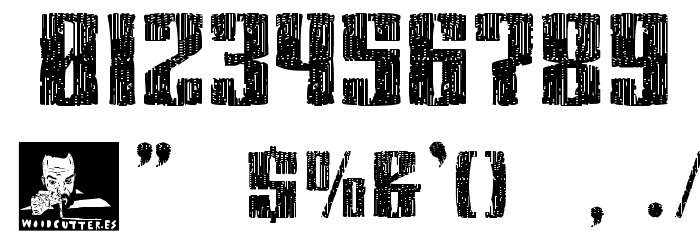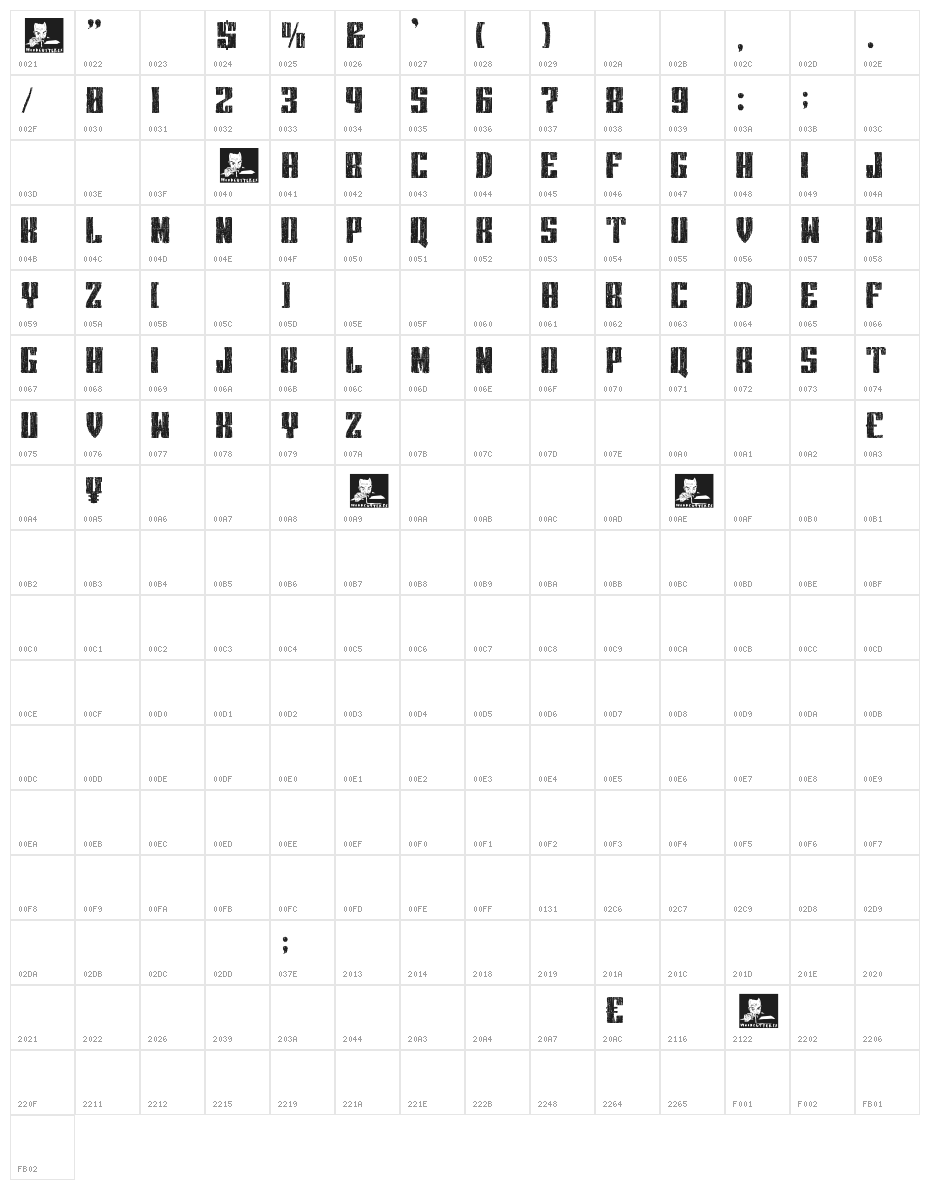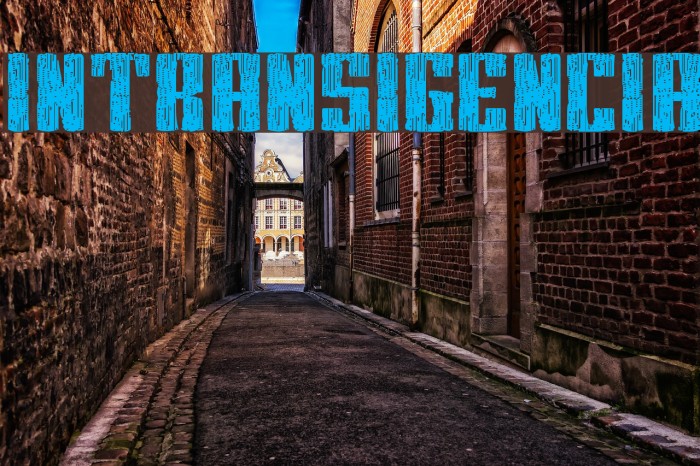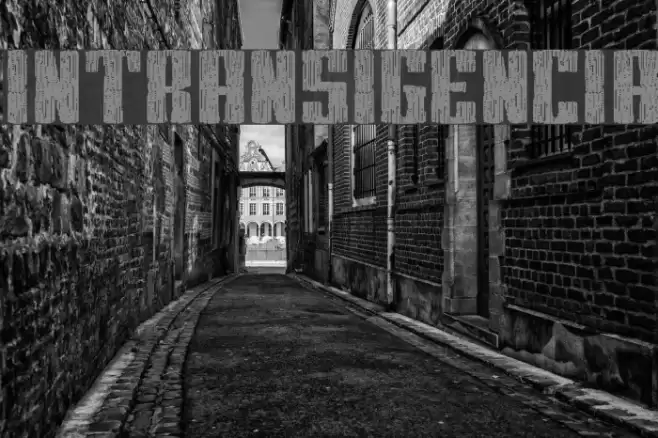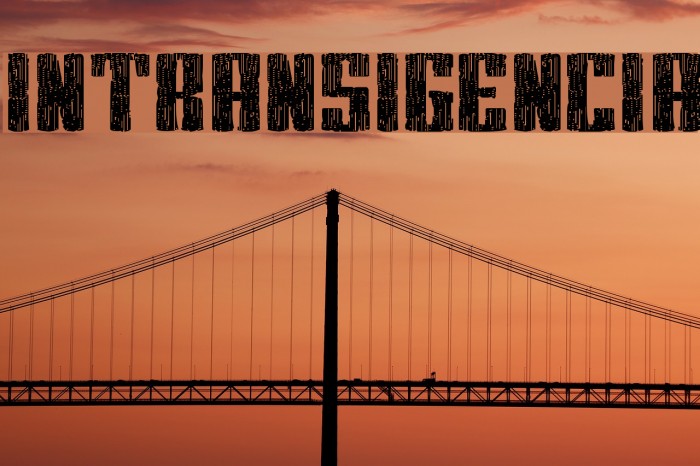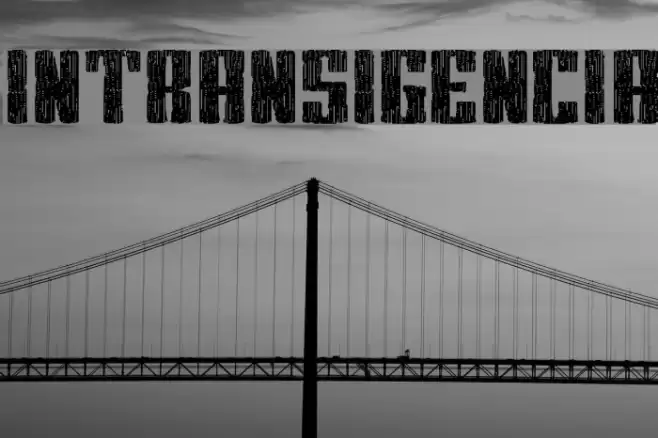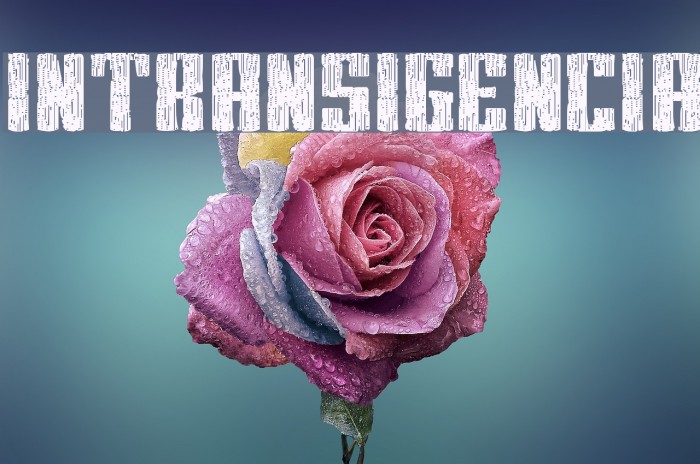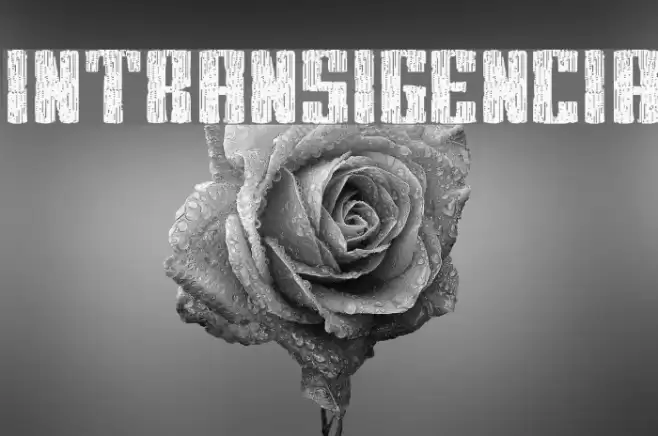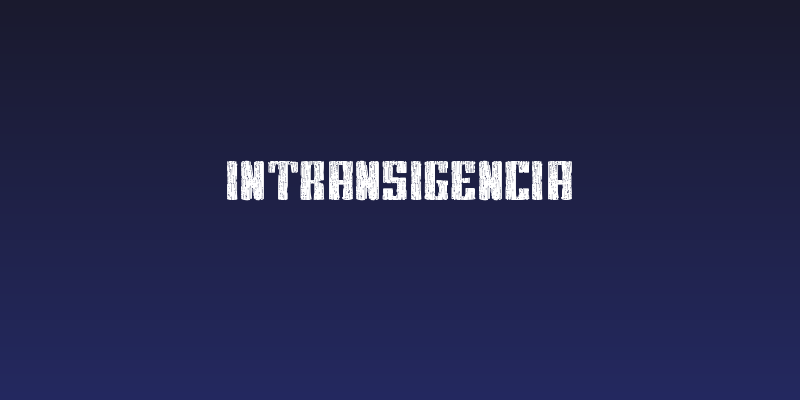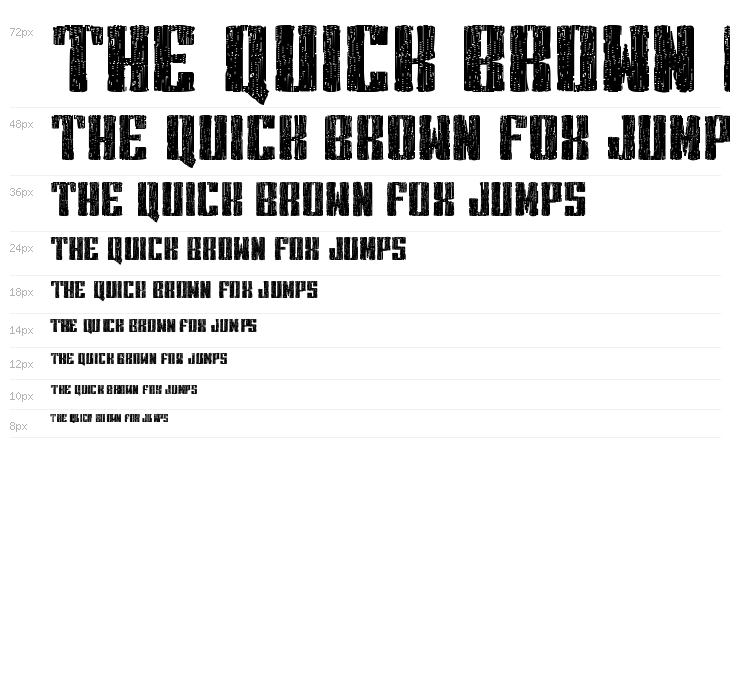
Intransigencia Font
Intransigencia Description
This font features a bold, distressed style with a textured appearance that mimics a rough, hand-carved look. The characters are blocky and robust, with uneven edges and a slightly irregular form that adds to its rugged charm. The uppercase and lowercase letters maintain a consistent height, giving it a uniform appearance despite the distressed detailing. Numbers and special characters follow the same stylistic approach, ensuring a cohesive look across all glyphs. This font is ideal for projects that require a strong, impactful presence with a touch of vintage or industrial flair.
| Overall Style | Vintage, Industrial |
| Proposed Projects | Ideal for posters, album covers, branding, and any design needing a rugged, vintage touch. |